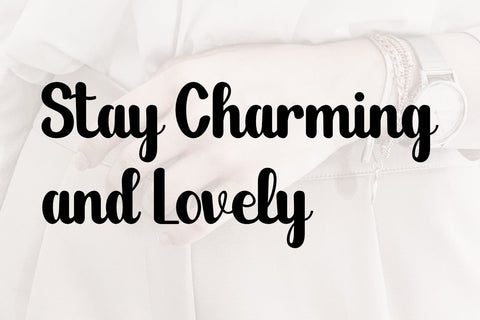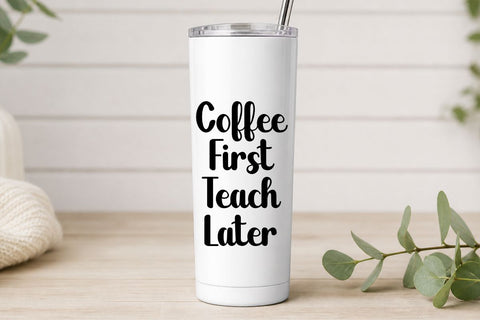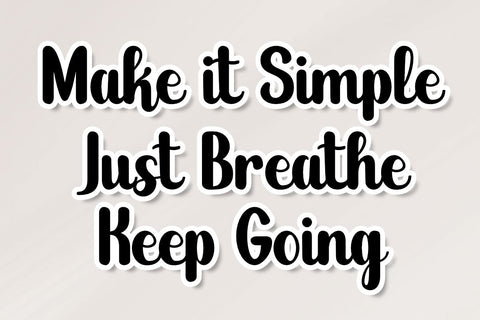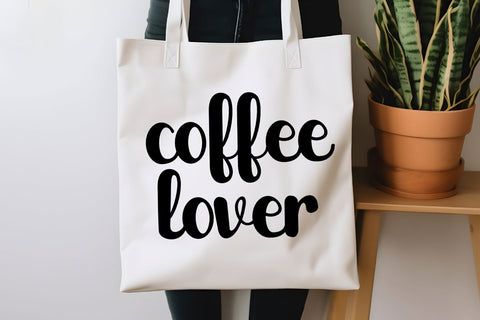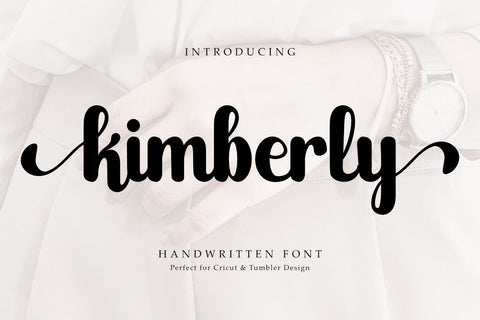
Kimberly - Beauty Handwritten Font
Kimberly is a sweet and bold handwritten font. It looks great on a variety of design ideas and adds a sweet and friendly touch. Perfect for tumblers, mugs, stickers, teacher designs, Cricut projects, quotes, and DIY crafts. This font is easy to use and suitable for both personal and commercial projects.